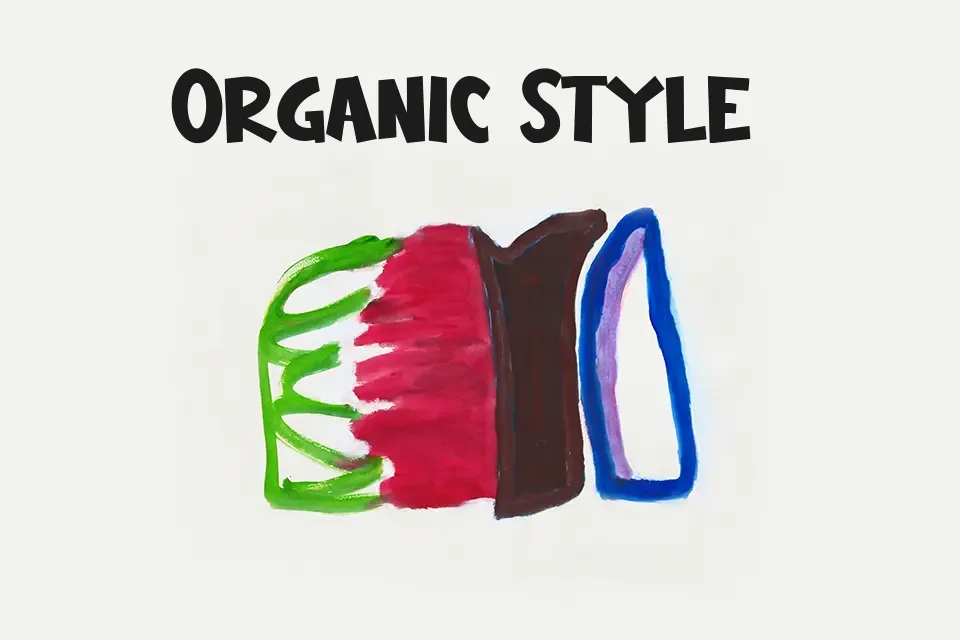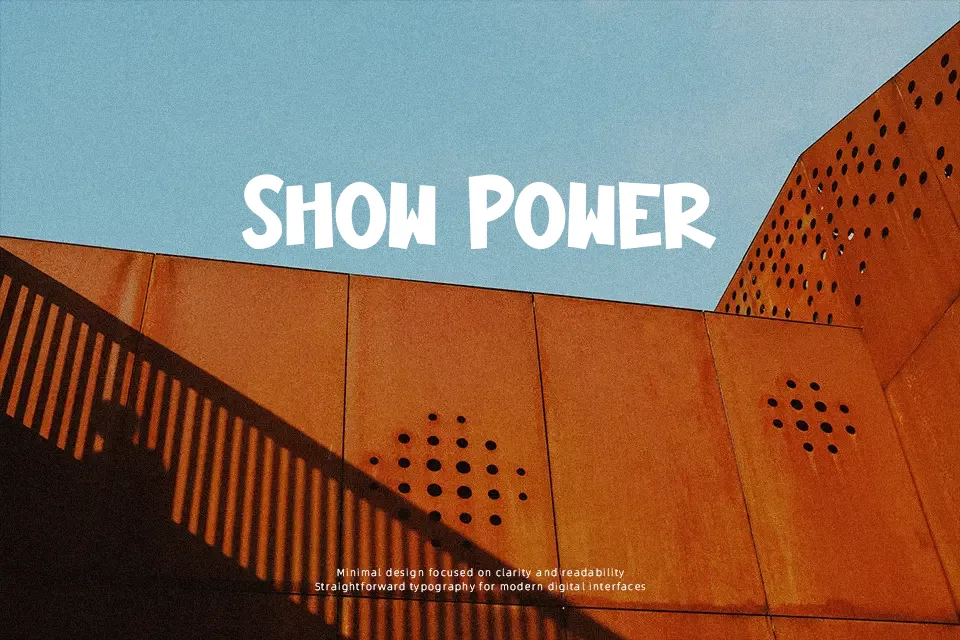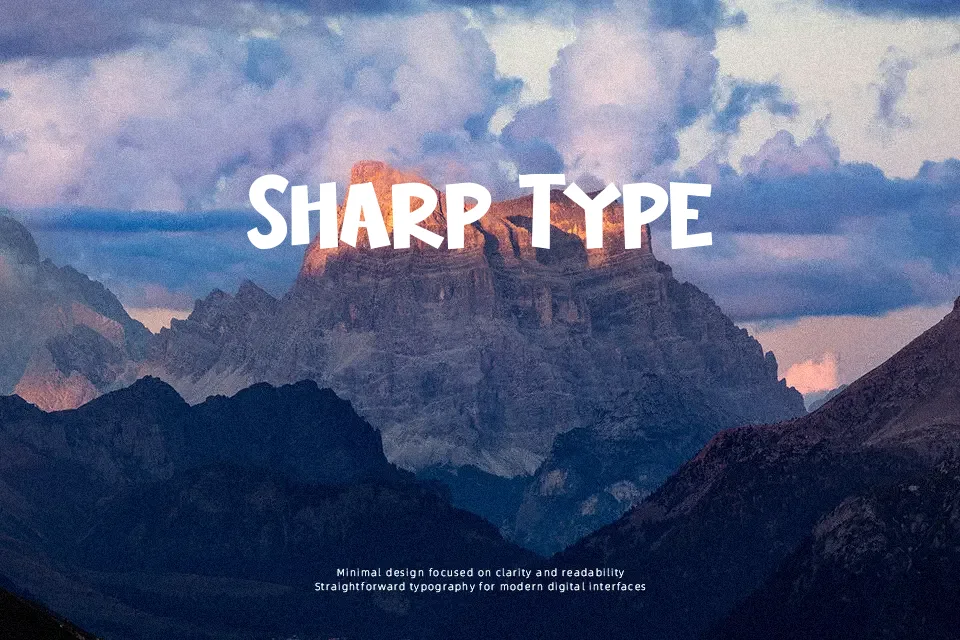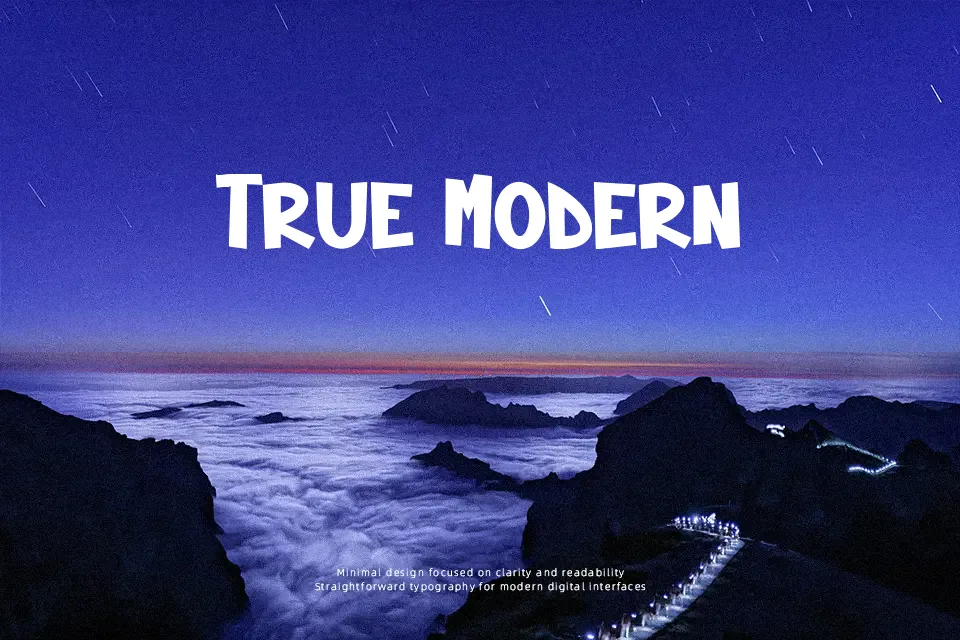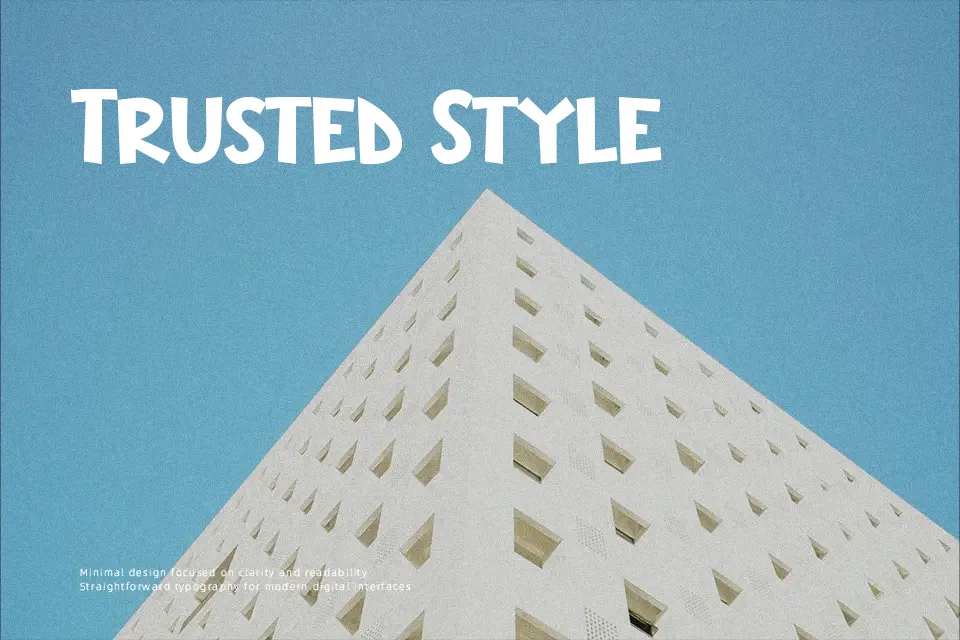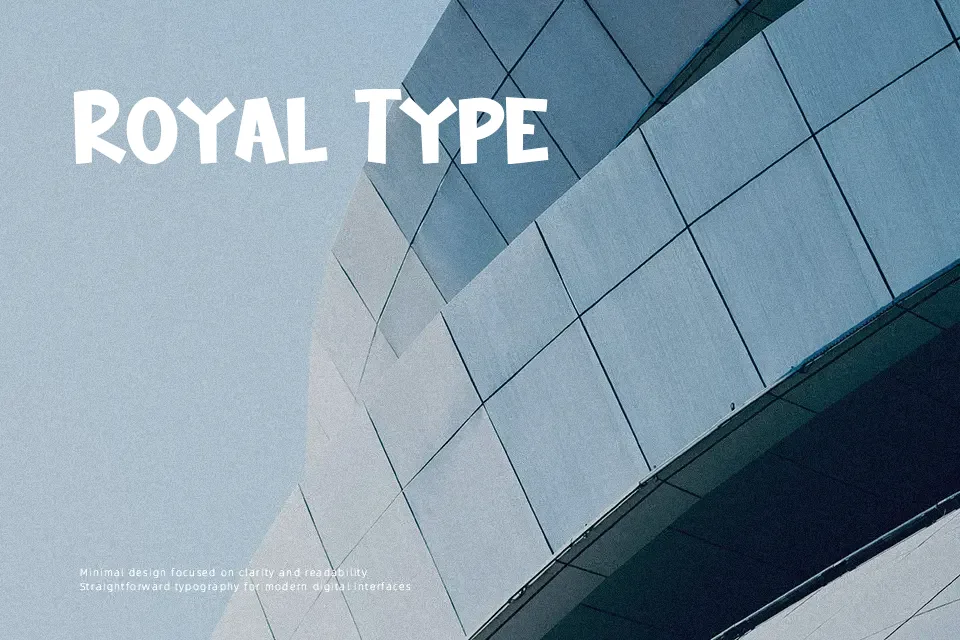
Ohayou Christmas Font
Ohayou Christmas Font works best as a cheerful display face for short seasonal messages. The visible glyphs use thick, rounded strokes, soft curves, and uneven decorative details that give the alphabet a cartoon-like rhythm. Wide proportions and generous internal space keep individual letters recognizable at headline sizes, while the expressive forms make longer lines feel visually busy. Capitals, lowercase letters, numerals, and common punctuation follow the same playful construction. The spacing helps maintain clarity in large festive titles, but the decorative texture becomes less comfortable in small copy or continuous reading.
Best For: Christmas card headlines,holiday gift tags,seasonal product packaging,festive social media graphics
Not Ideal For: long paragraph text,small interface labels,formal business documents,dense editorial layouts
Perfect for christmas, headline, and packaging, with a bold and cartoon style.